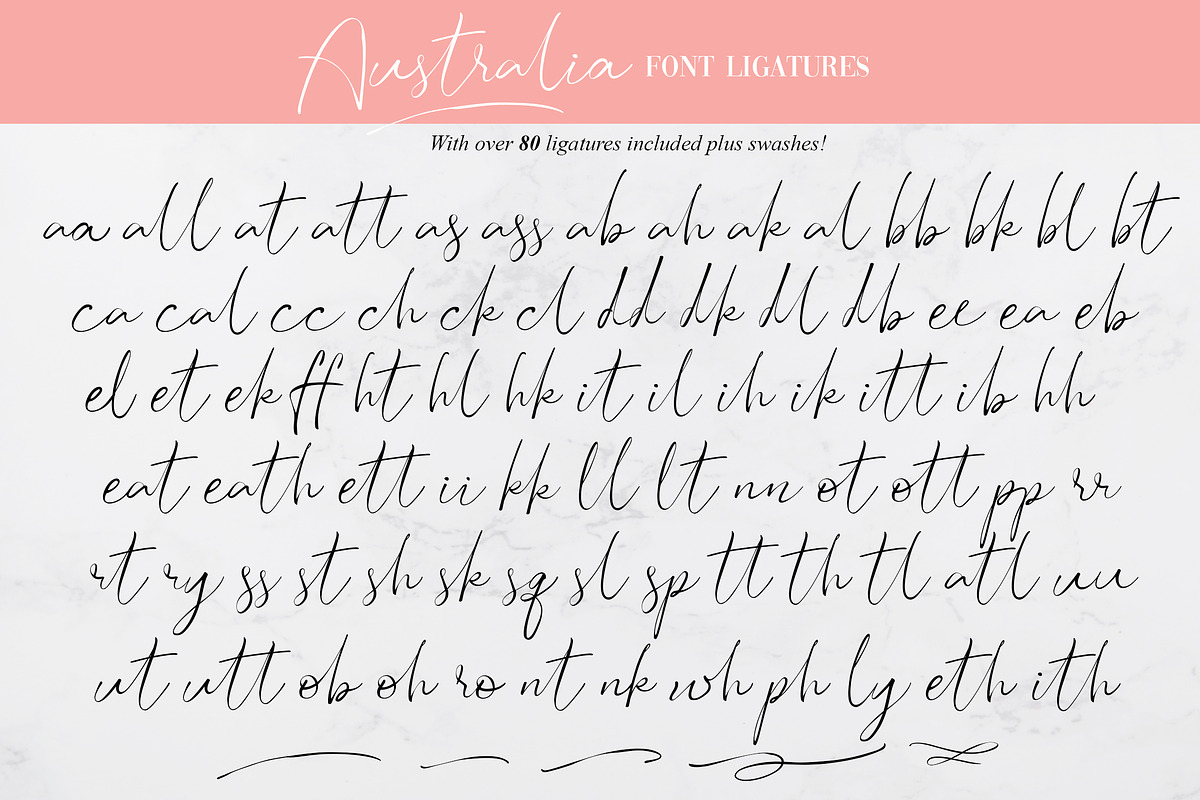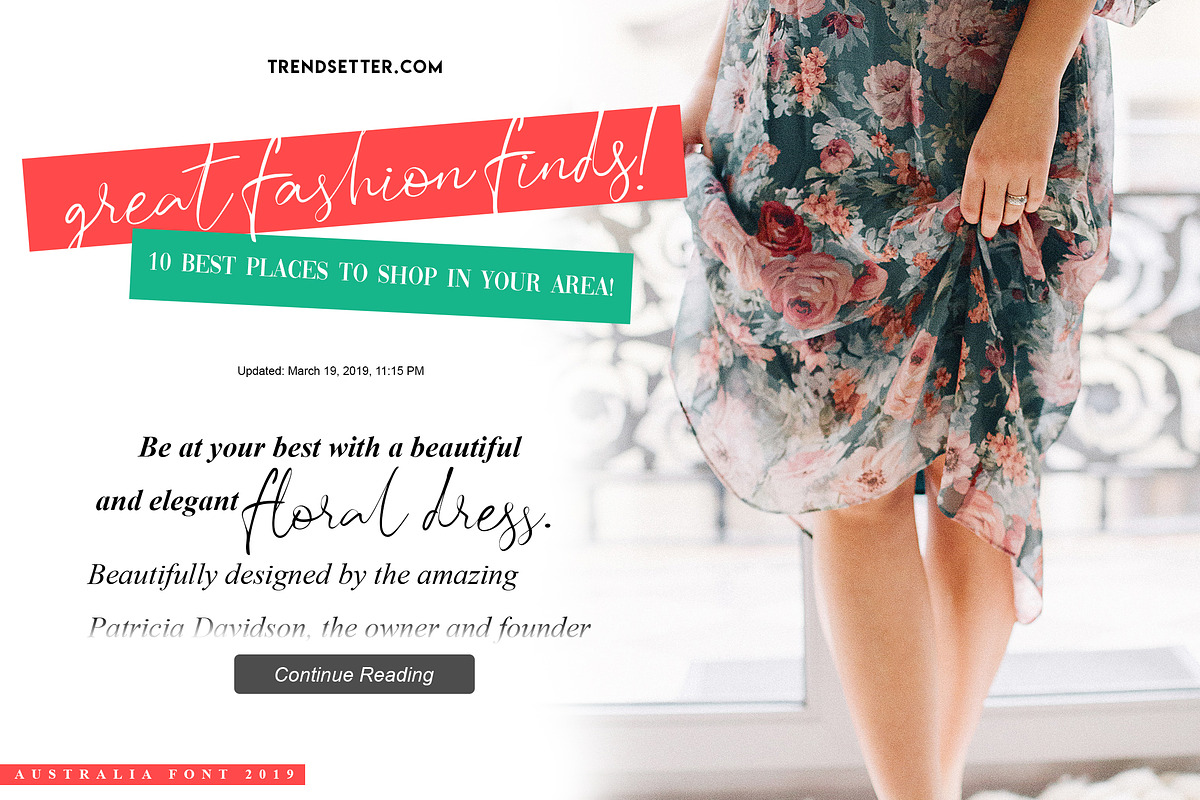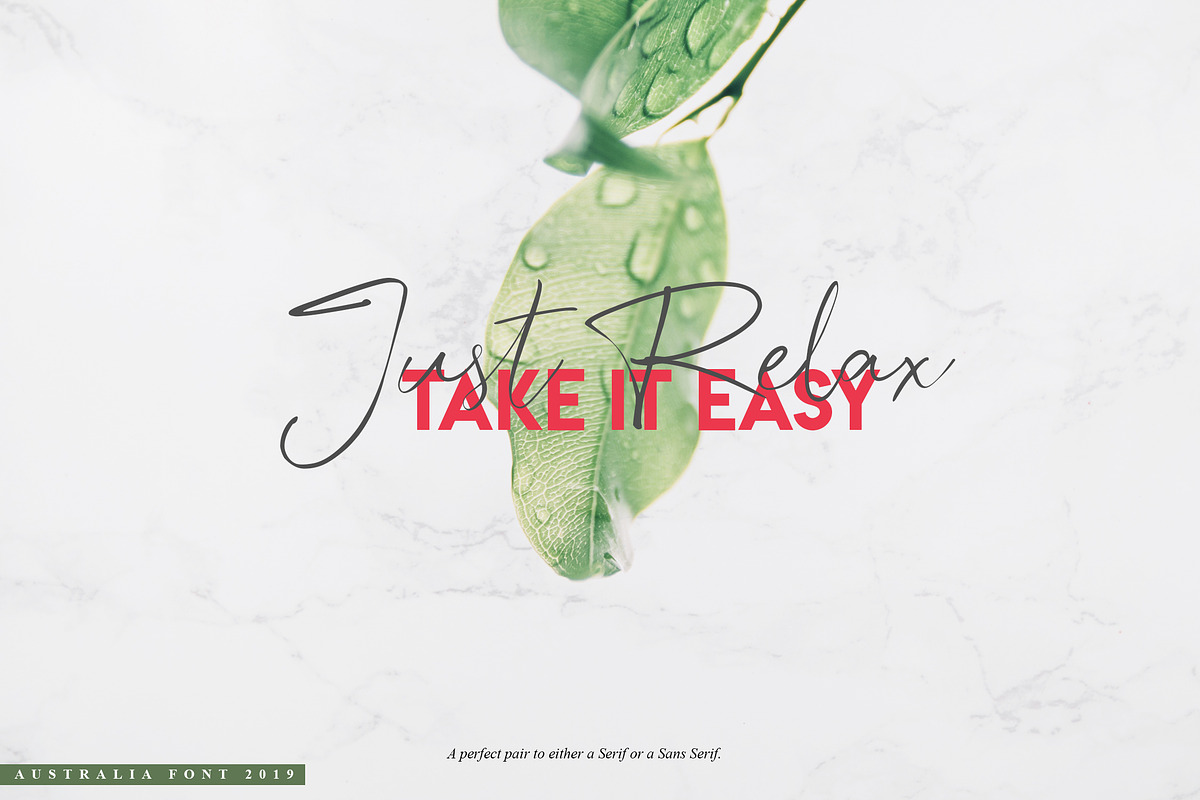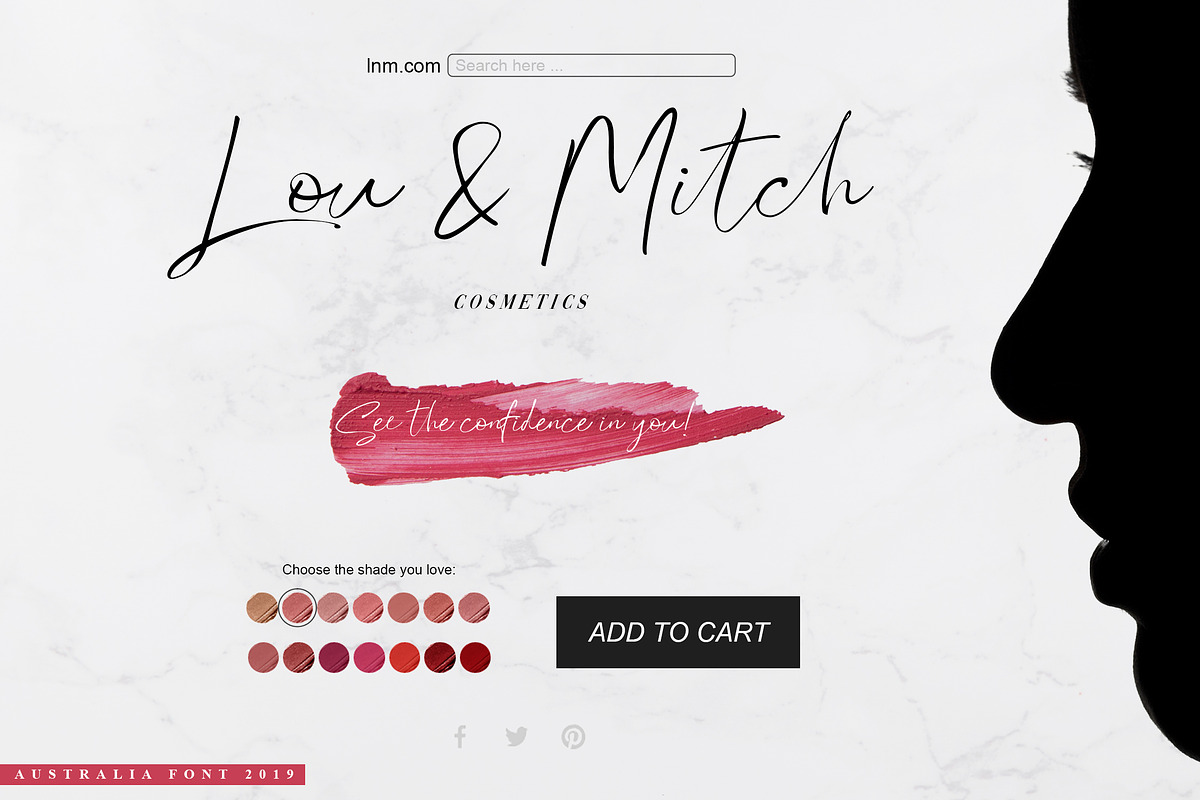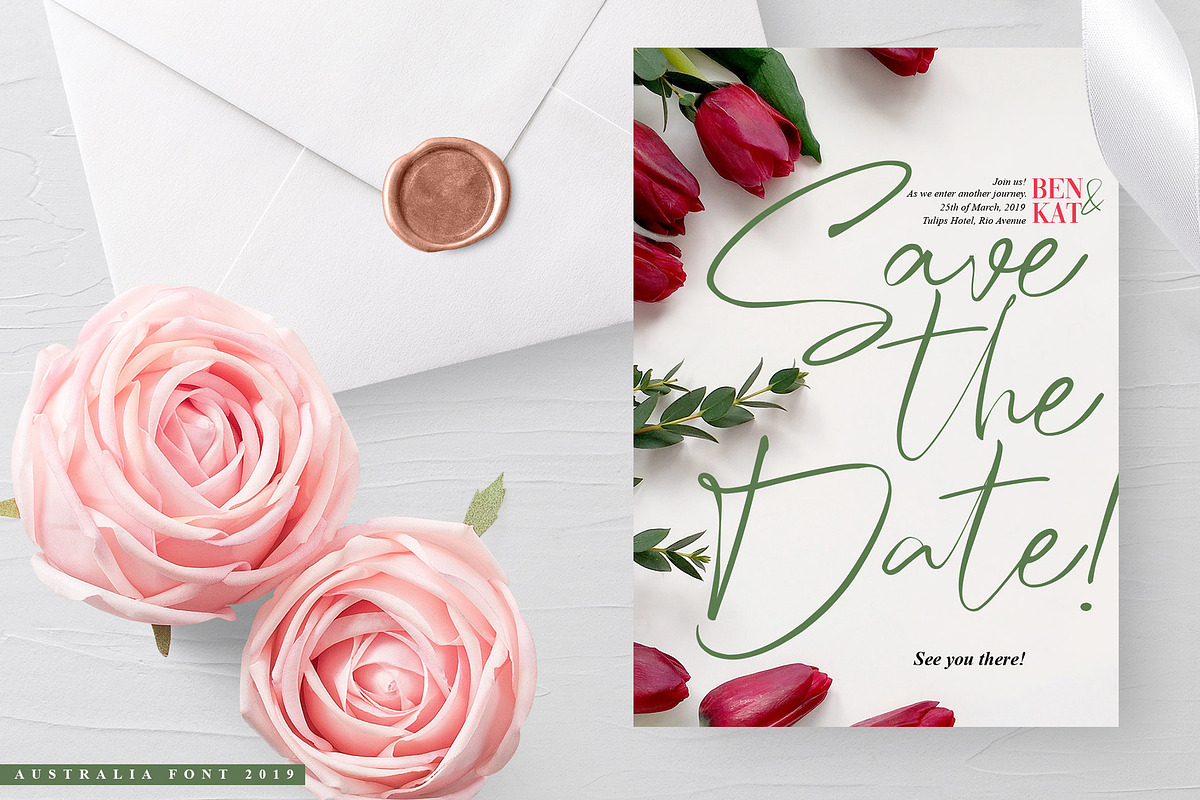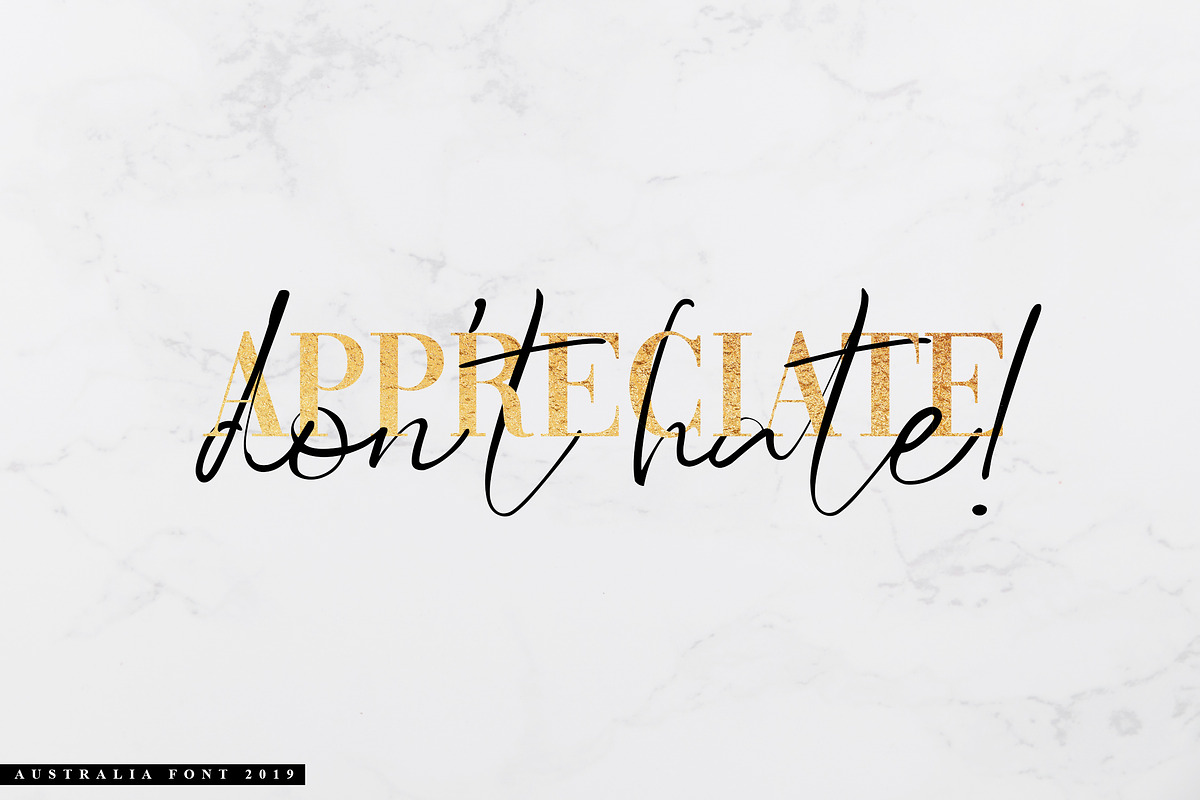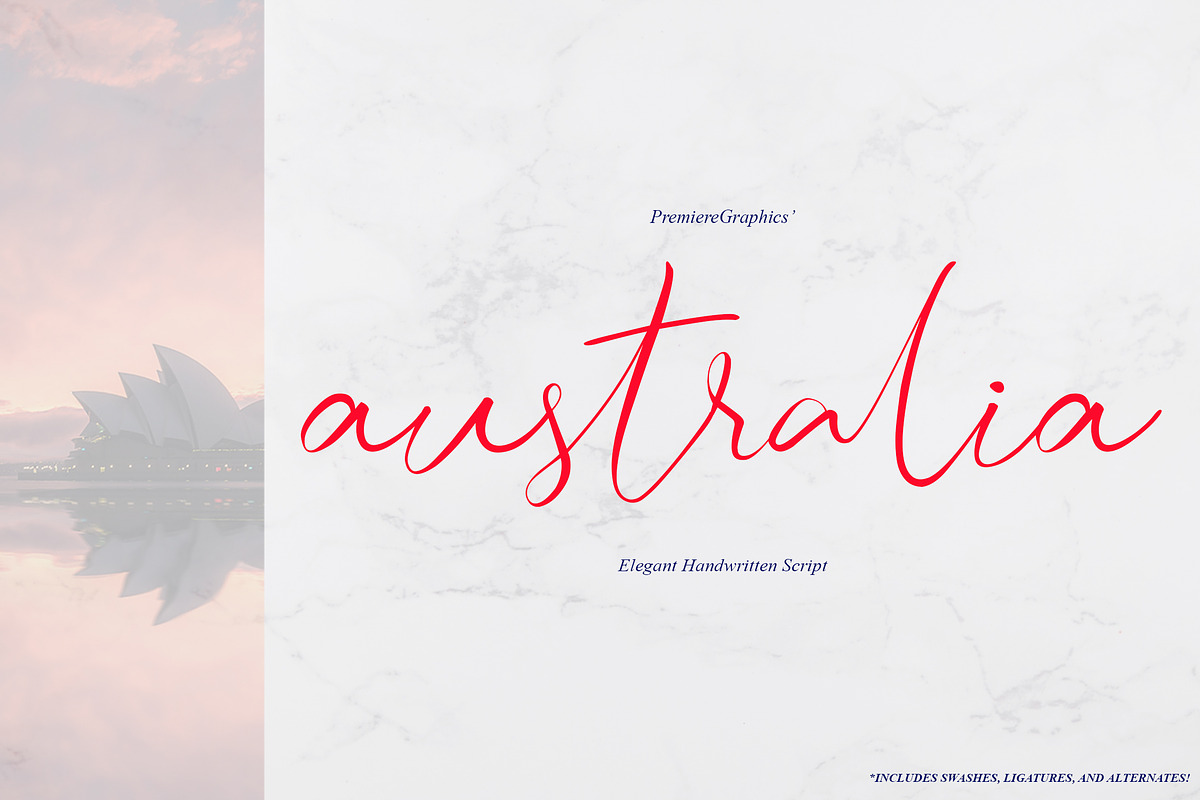
Australia Script Font
Take me to Australia!
This new font called Australia is carefully handwritten to be as realistic as your handwriting with a fountain pen. With its thick-to-thin stroke, it makes your design as classy and as elegant it could ever be. It can be a perfect pair to a Sans Serif or a Serif font. It is perfect for cosmetics, fashion blogs, even to your invitation cards. Its realistic appeal is also great for photography, travel, branding, logo, magazine, identity, videos, etc.
The Australia font includes swashes and ligatures. With over 80 ligatures, the handwritten design possibilities are endless.
- With over 80 ligatures, the handwritten design possibilities are endless.
Why Australia Script Font is worth a look
Australia Script Font by Ryn Pojas fits naturally into Branding, posters, packaging, typography.